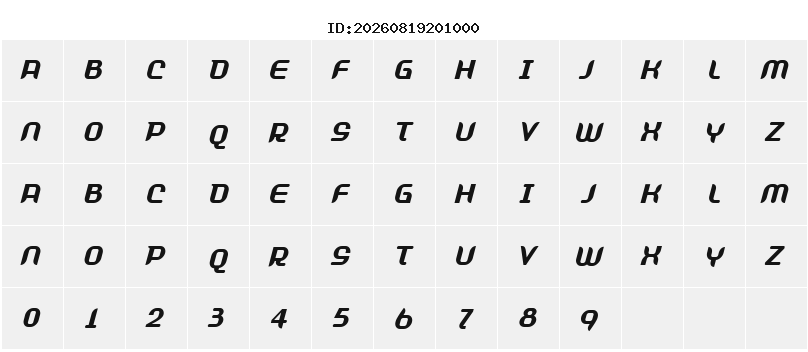
Shifty Preview
• Font Name: Shifty
• Font Style: Medium Italic
• Font ID: TransType 2 PC;Shifty-Oblique;001.000;04/01/04 06:38:44
• Full Font Name: Shifty-Oblique
• PostScript Name: Shifty-Oblique
• Character Count: 246
About Shifty.ttf
Shifty.ttf is a modern, elegant sans-serif font designed for ultimate readability and visual harmony. Perfect for branding, headlines, web design, and print materials.